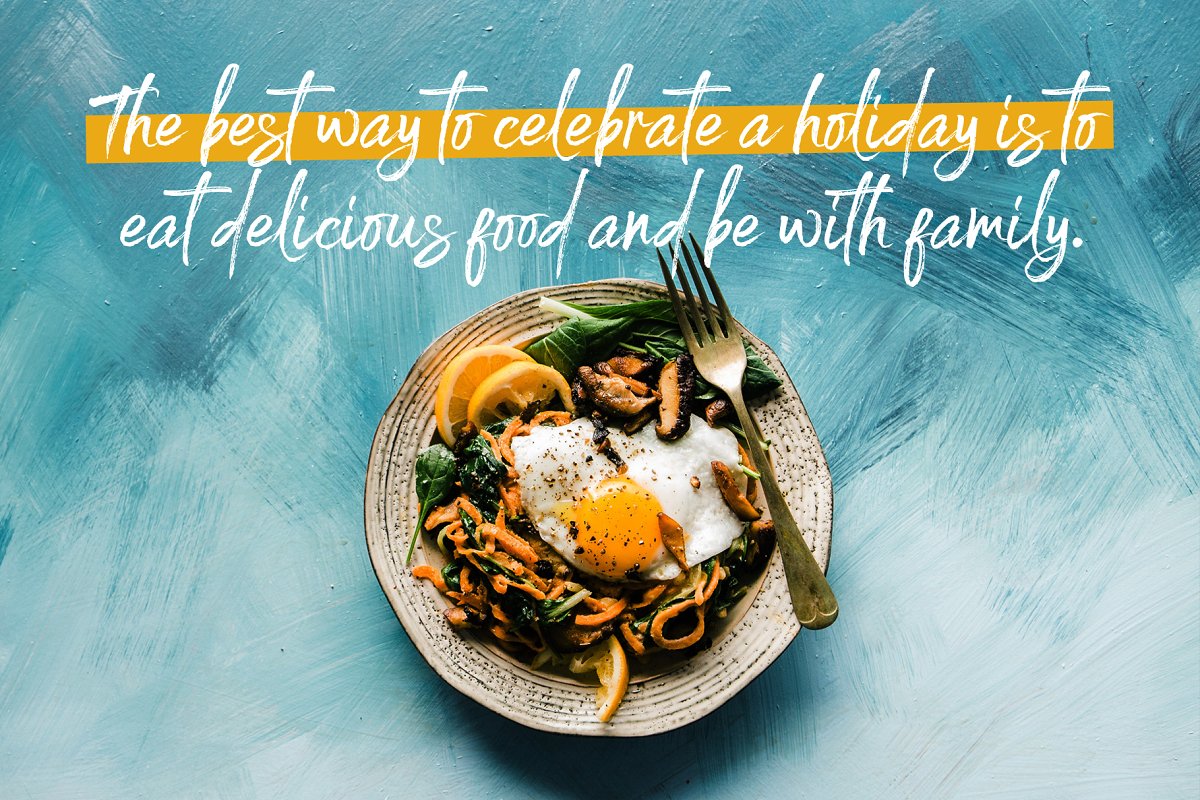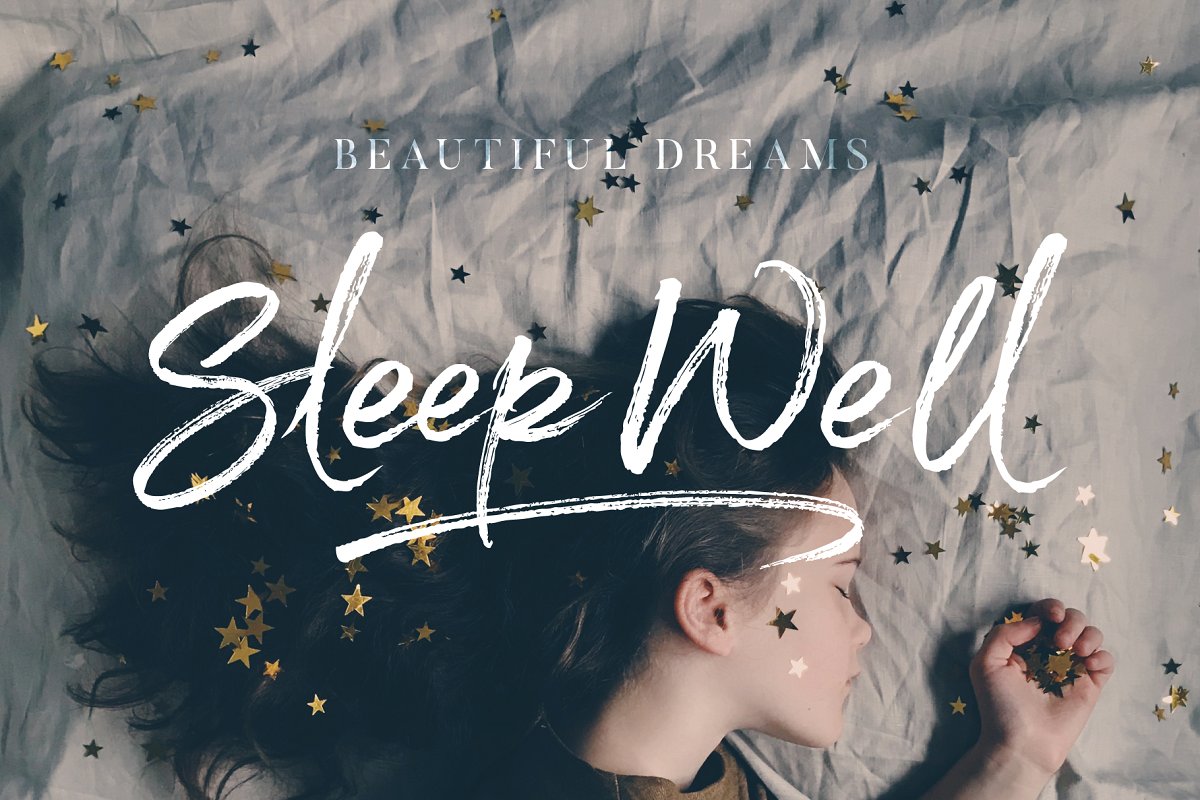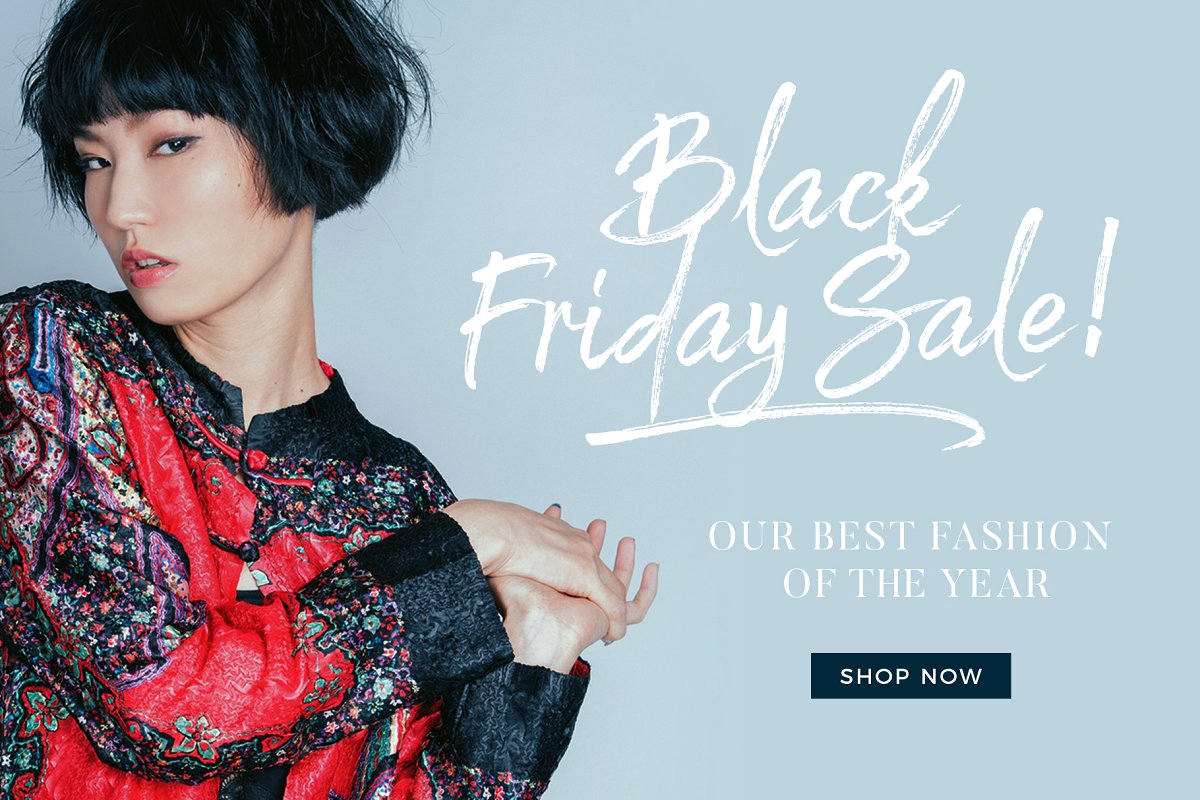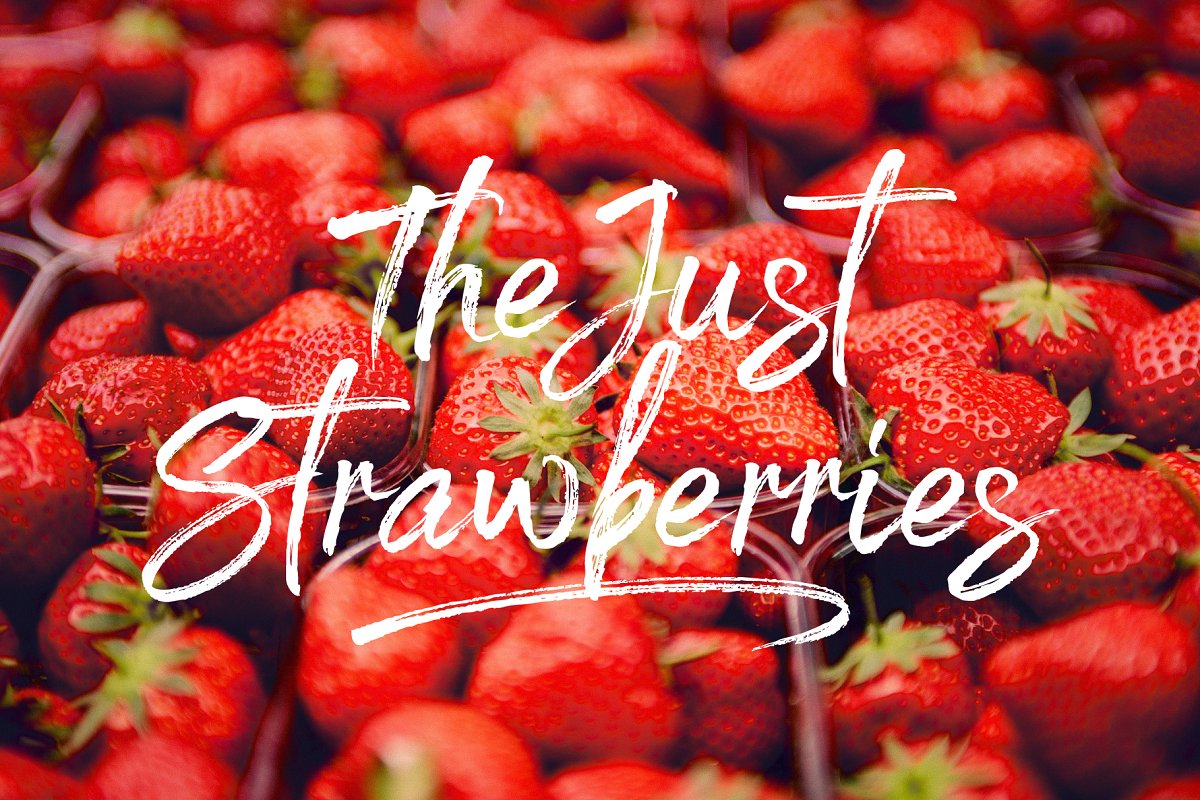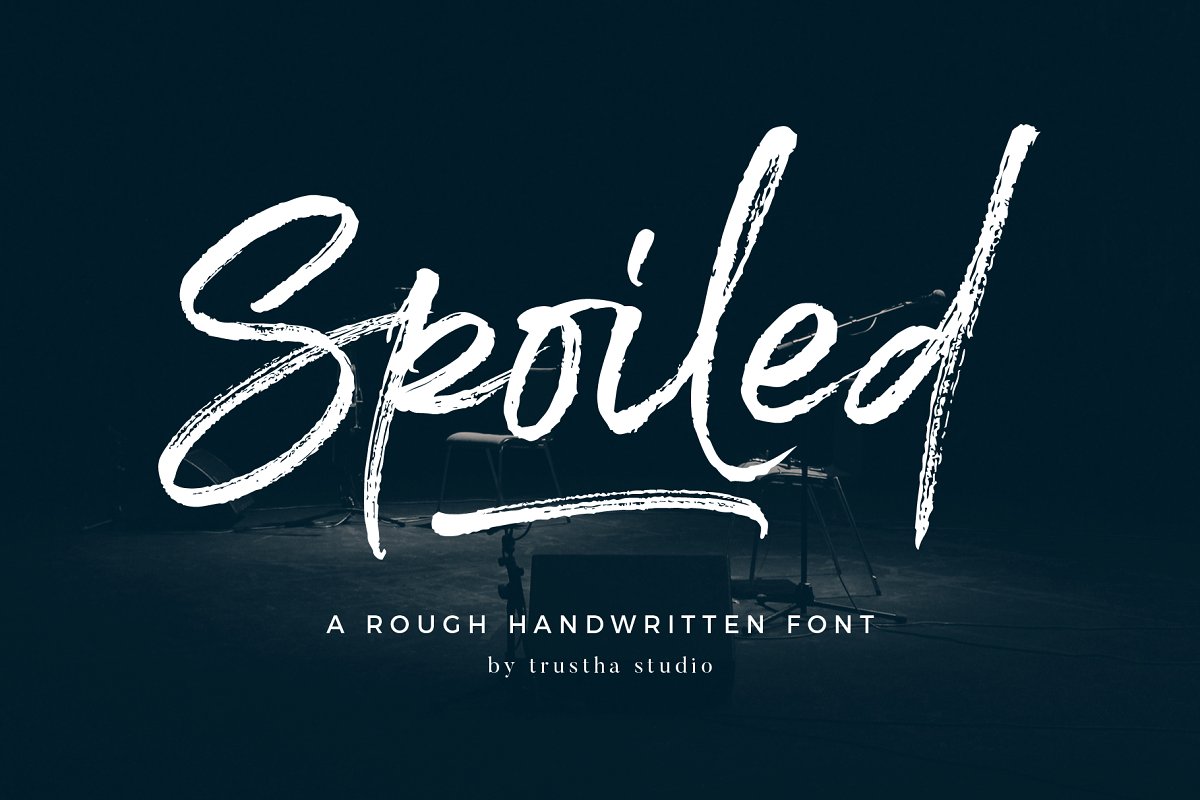
Spoiled Brush Font
Hello friend. A new brush style. Add it now to your fonts collection. Introducing Spoiled Font. The Spoiled is a rough handwritten font. It has a natural style which makes it perfect for branding, advertising, poster design, logo, book covers, magazines, packaging, website headers, greeting cards, apparel designs, merchandise, fashion campaigns, newsletters, album covers, and quote designs and more.